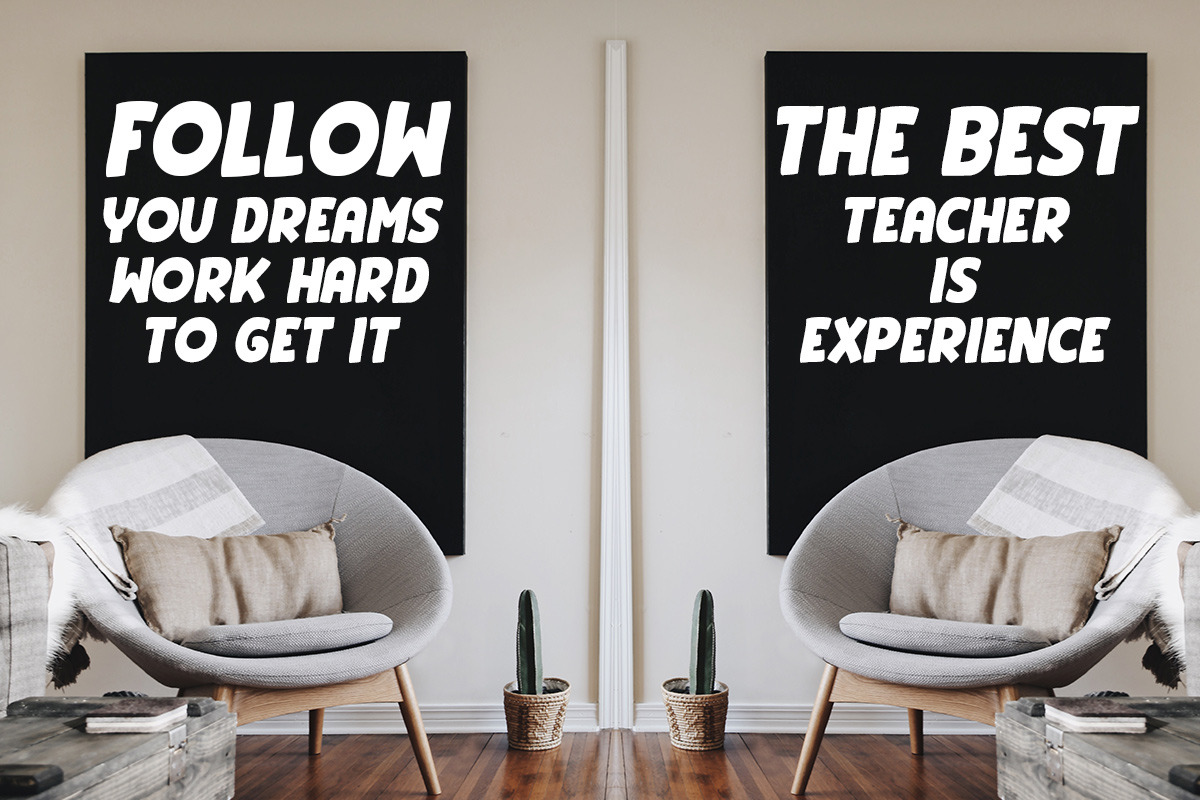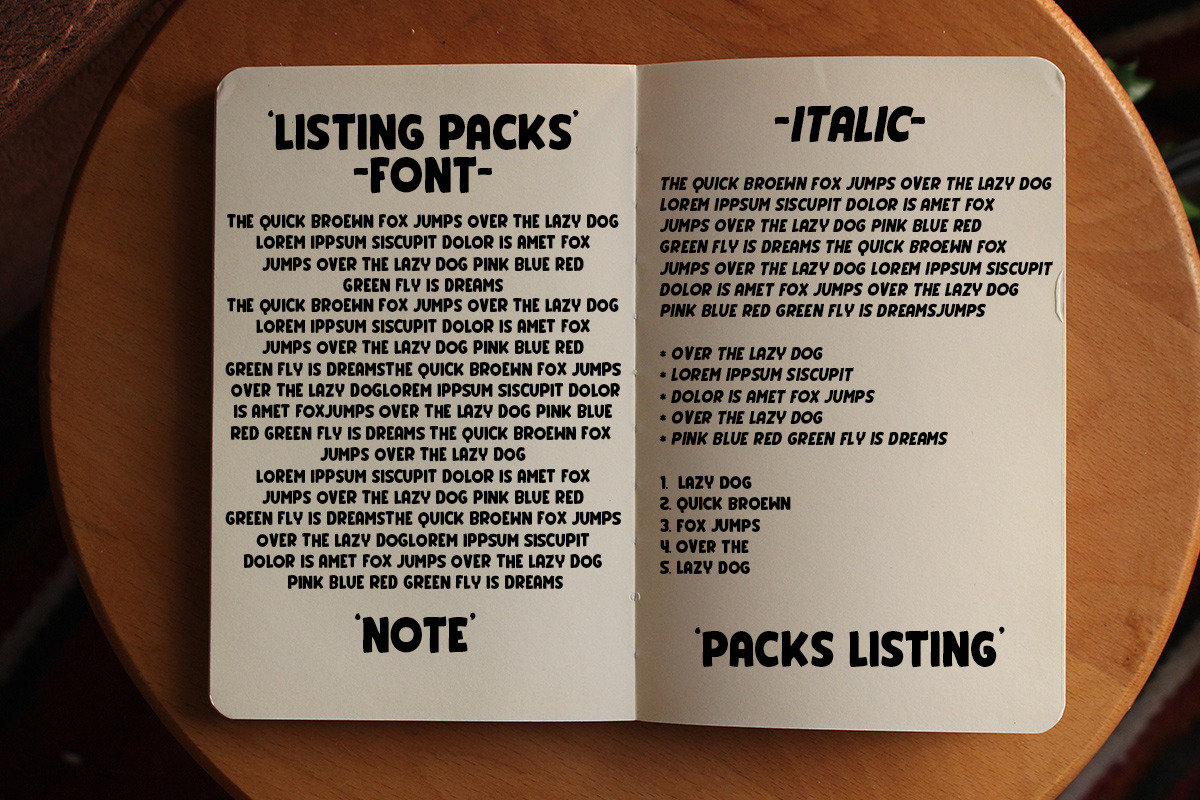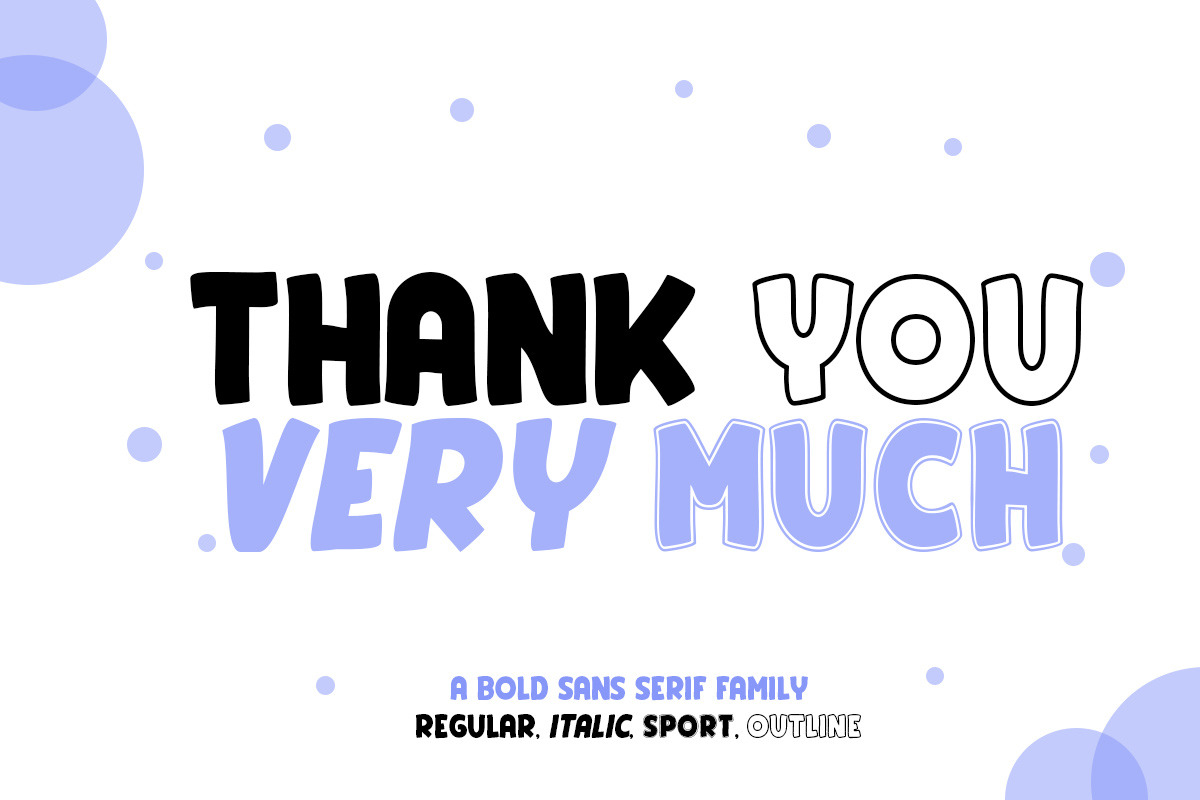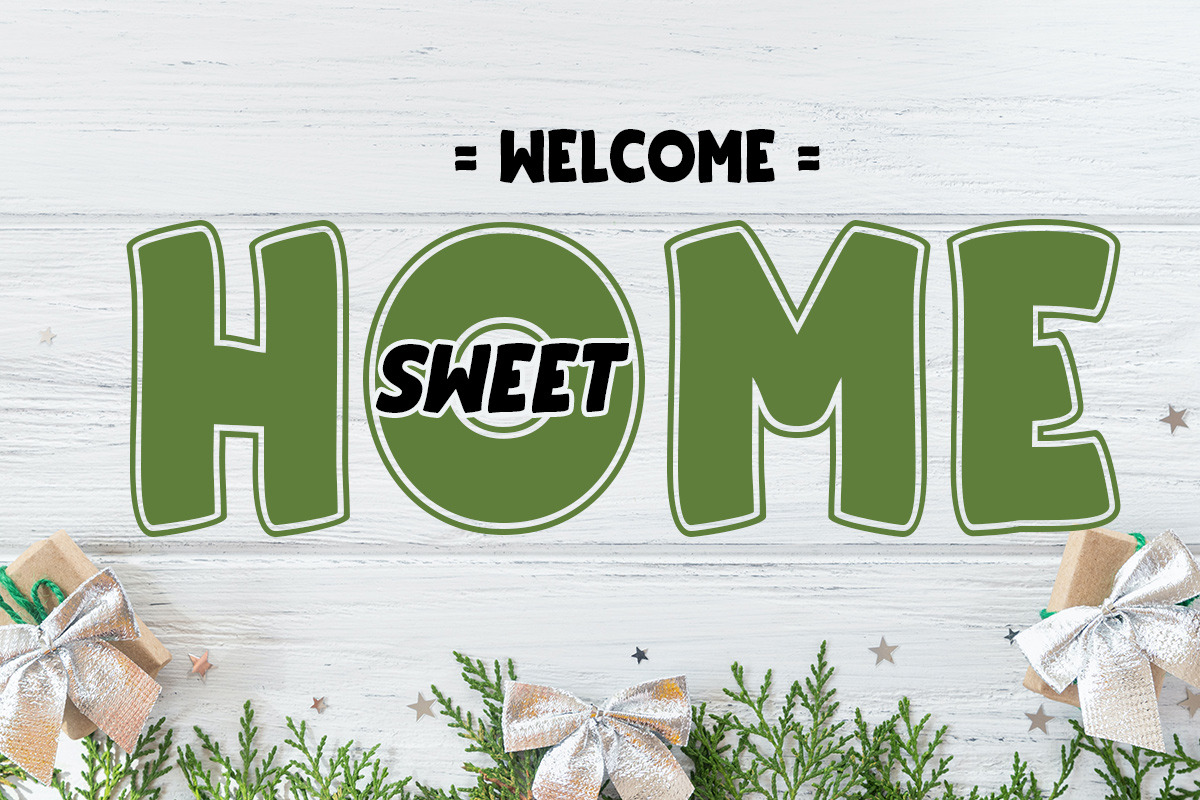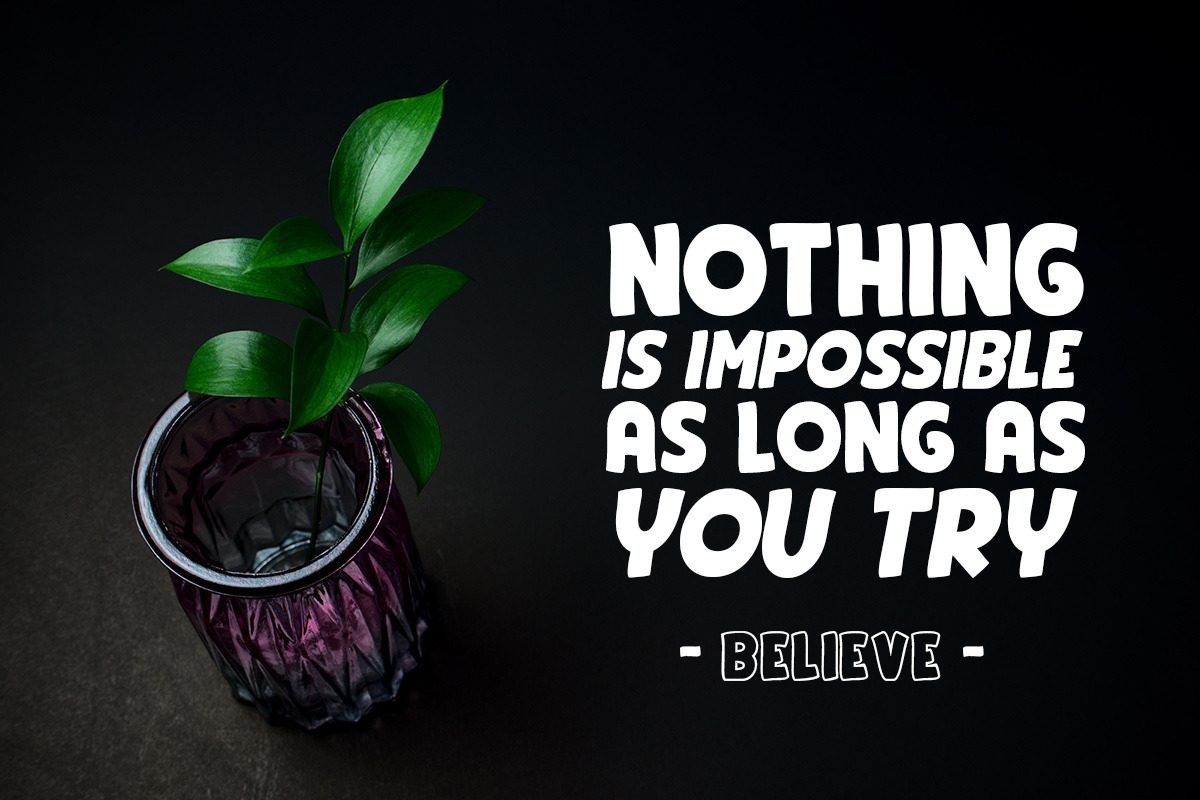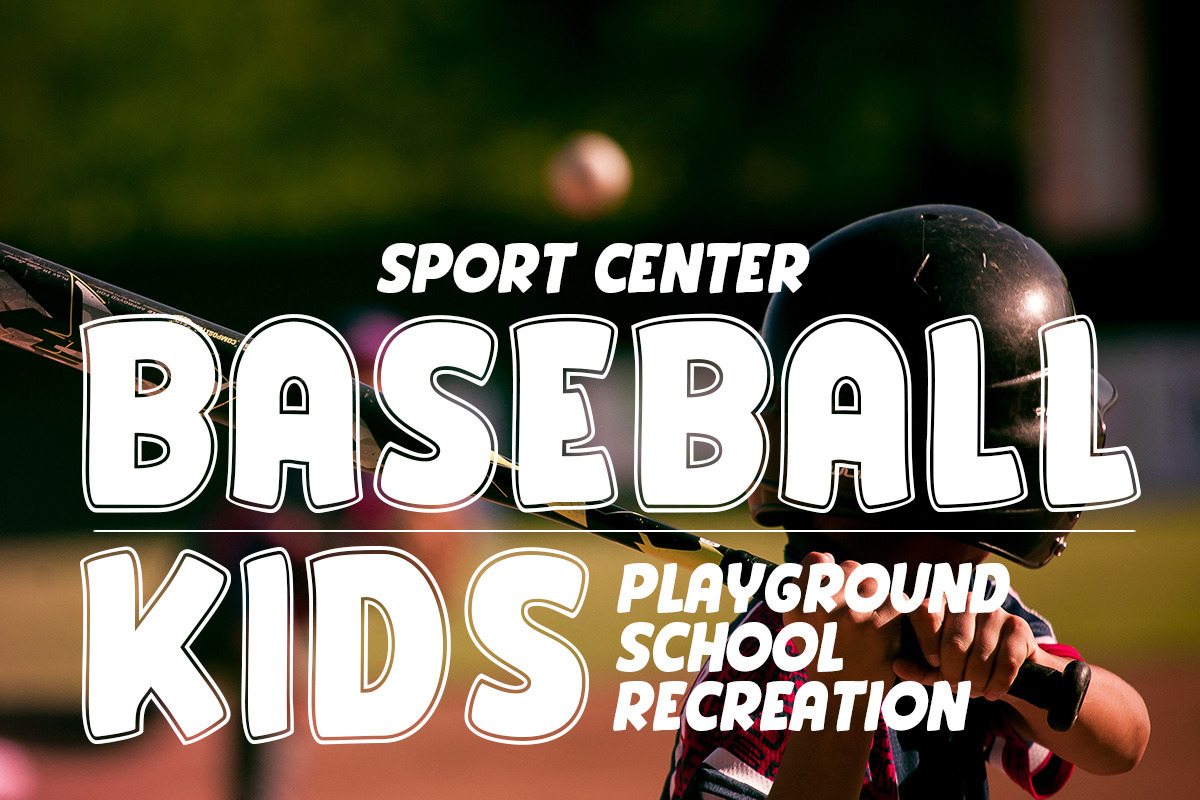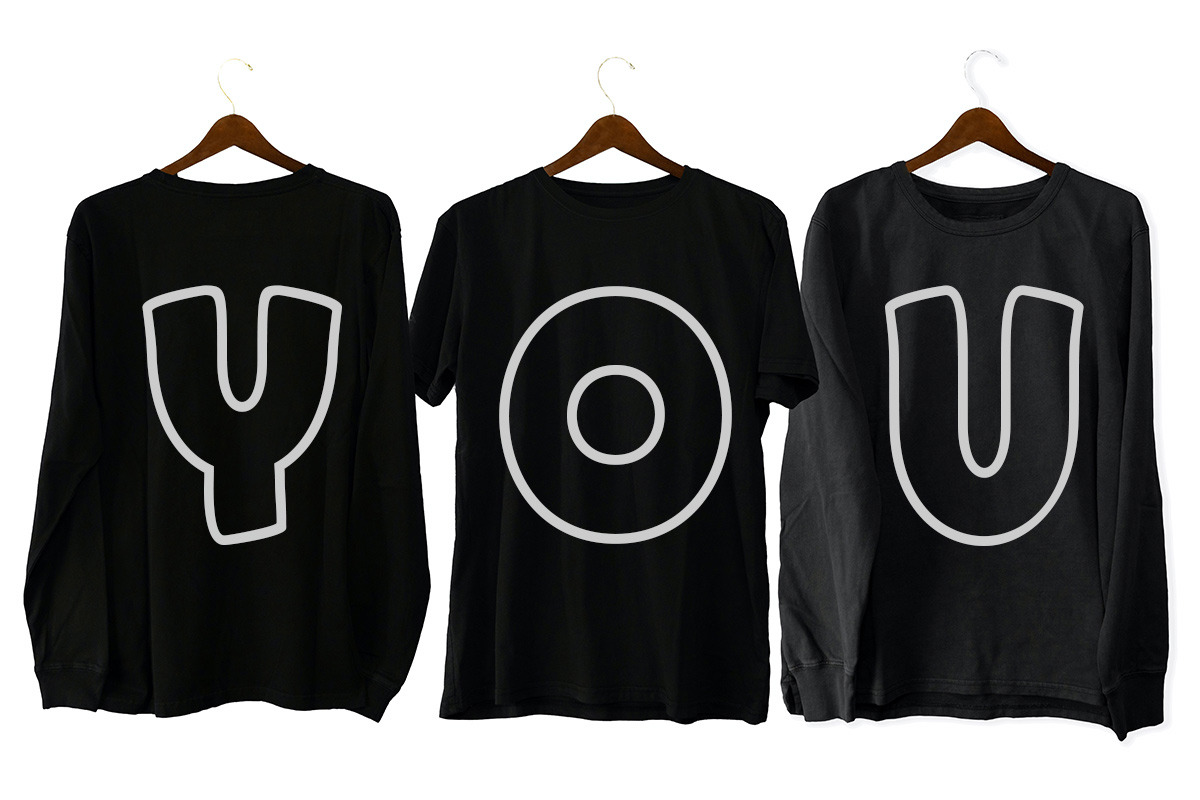
Listing Packs
Listing Packs family this is a font family with a bold and large appearance, this font is perfect for all types of displays that look unique and bold, there are several variants of the character you use, and make sure you don't miss it, very suitable for all types of design, crafts, social media , magazines, books, banners, and this design is very potential for you to have